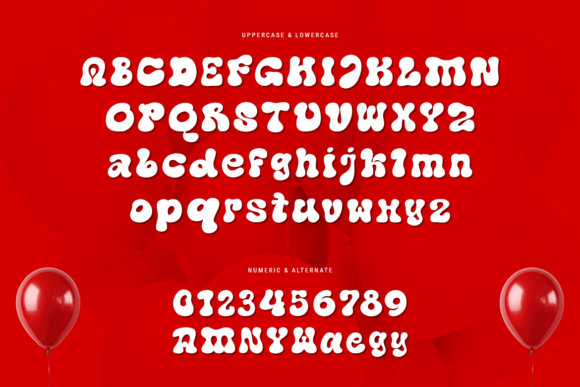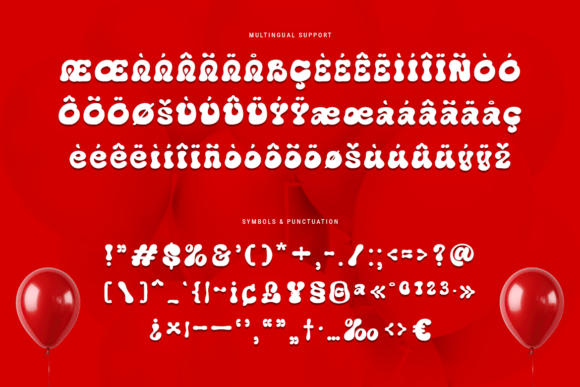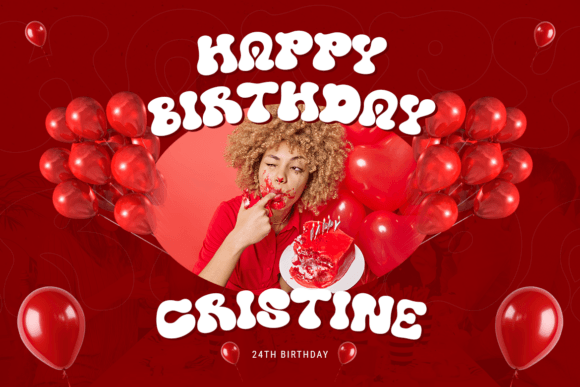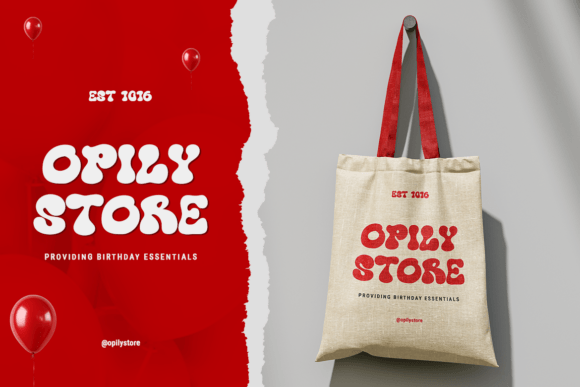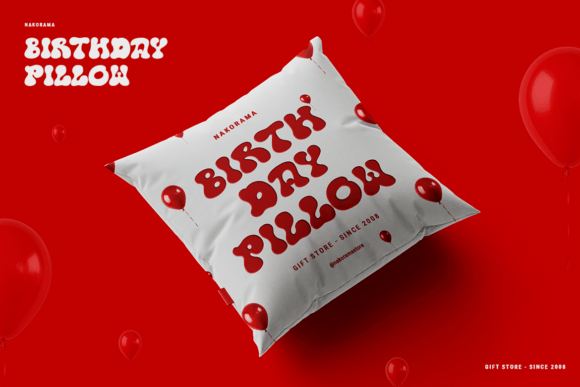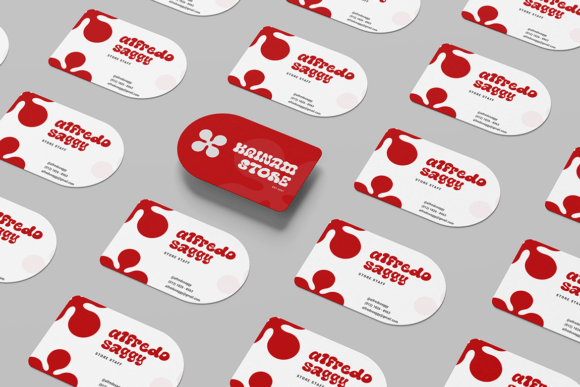
Introduction to Mople Font
Have you ever stumbled upon a font that instantly brightens up your design, transporting you to a world of joy and whimsy? For designers, finding that perfect font can be a game-changer. It’s the moment when your creative project comes alive, and the words start to dance on the page. For those designers looking for a design resource that adds a playful twist, we’re excited to introduce you to the Mople Font.
With its rounded, inflated letterforms, Mople Font is a free download that’s perfect for children’s designs, party invitations, posters, and playful branding. Its bubbly and light-hearted aesthetic adds a cheerful vibe, making it ideal for designs that need to convey fun, happiness, and celebration. Whether you’re working on a digital project with a transparent background or a print design, Mople Font is a high-quality addition to any designer’s toolkit.
Honest Review: Mople Font
I recently had the chance to work with the Mople Font, a design resource that’s been gaining popularity among designers. Overall, I was impressed with its versatility and high quality.
- ✨ The font’s transparent background makes it perfect for creative projects that require intricate design elements.
- ✨ The font’s high quality is evident in its crisp lines and smooth curves.
However, I did encounter a few limitations during my project.
- ⚠️ The font lacks a wide range of characters and symbols, which can be a hindrance for projects that require a lot of customization.
Overall, I would recommend the Mople Font for small-scale creative projects or personal design work. While it may not be the most comprehensive font, its high quality and free download make it a valuable resource for designers.
Tips for Getting the Most Out of Mople Font
Mople Font is commonly used for design projects that require a modern and sleek look. It’s perfect for creating posters, flyers, and social media graphics. The font’s high-quality design makes it a great resource for any creative project.
Alternatives to Mople Font